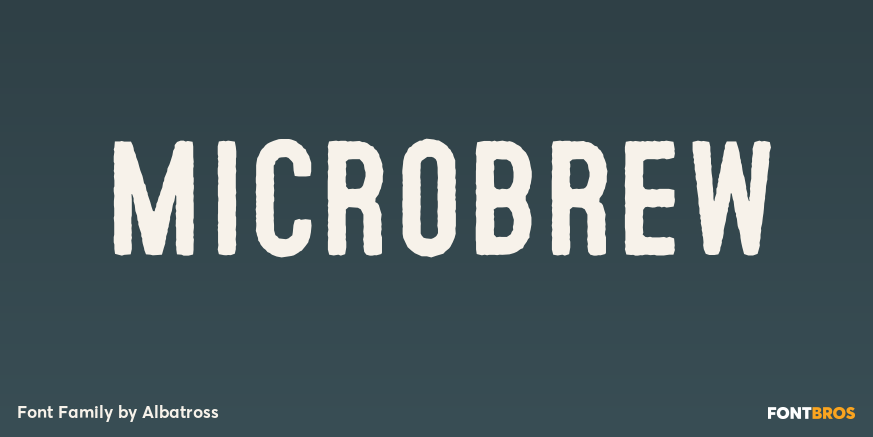
Microbrew
About Microbrew
Microbrew is a versatile retro display family with 14 individual styles, plus retro banners, ornaments, and symbols. It\’s a nice mix between wood type poster style, and vintage letterpress. The more detailed styles work well at large sizes, and the cleaner…